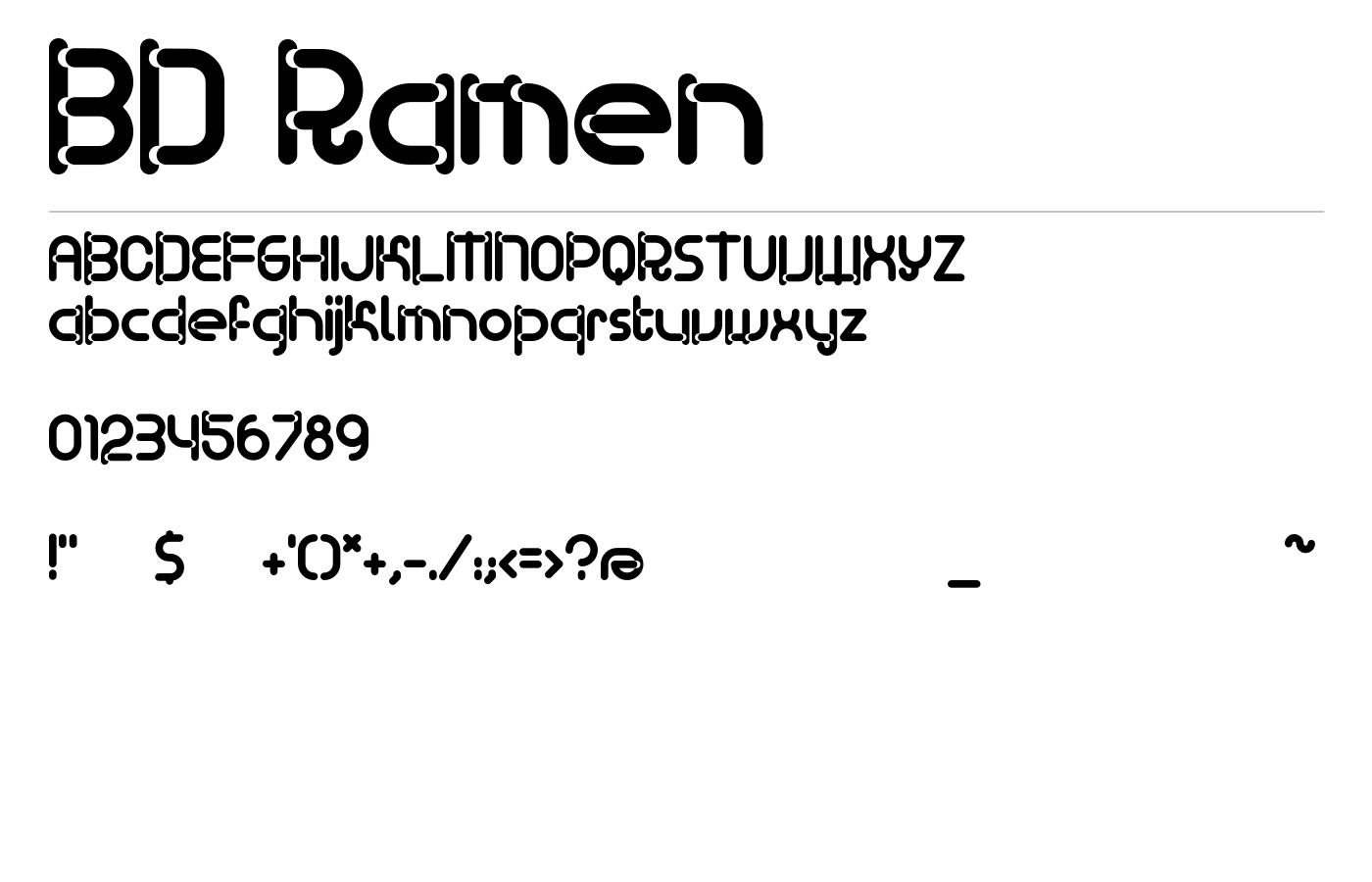
BD Ramen is a futuristic sans serif font characterized by its bold weight, rounded corners, and unique segmented strokes that give it a playful, modern digital vibe. The font features a medium x-height, double-story letterforms, and distinctive shapes like the stylized Q tail, making it stand out in headlines or branding that seek a tech-savvy, quirky, or innovative personality. Its clear, geometric construction works best for logos, packaging, and display use where a strong, eye-catching impression is desired.
BD Ramen Font
About BD Ramen Font